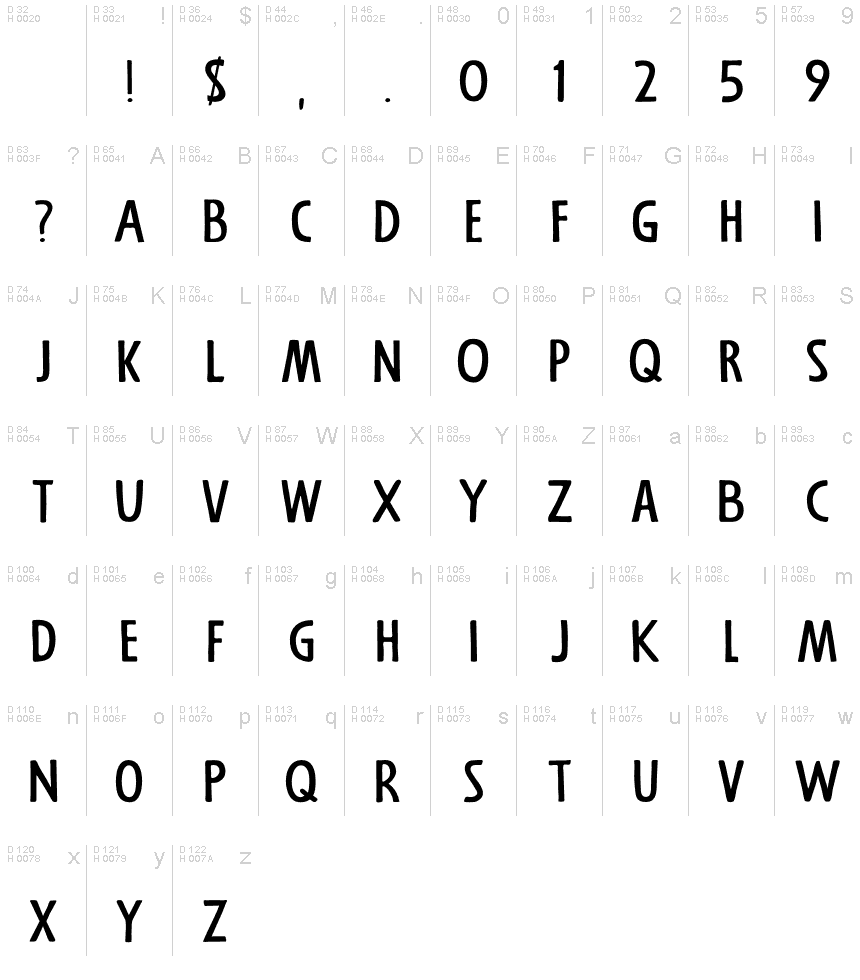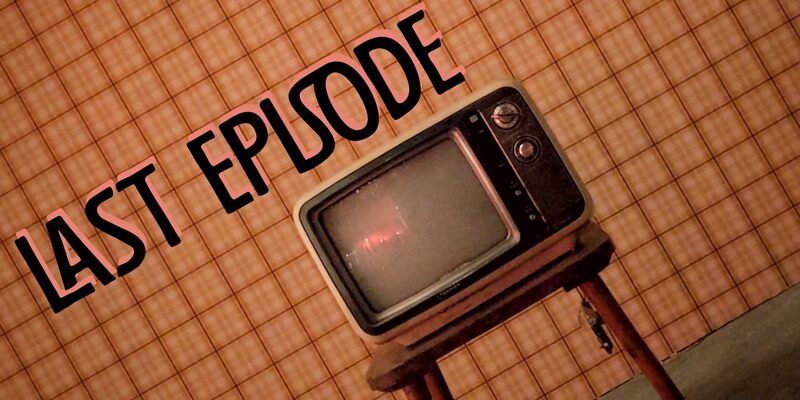
Last Episode DEMO Regular
Last Episode, designed by Hanoded, is a captivating condensed display font that exudes a sense of sophistication and edginess. With its sleek lines and distinct character shapes, this font is perfect for projects that require an air of modernity and professionalism.
Its condensed nature allows for more text to fit in limited space without sacrificing legibility or impact. Whether you're designing eye-catching posters, contemporary logos, or stylish editorial layouts, Last Episode will add an element of elegance and uniqueness to any project.
Let its bold strokes make the lasting impression you desire.